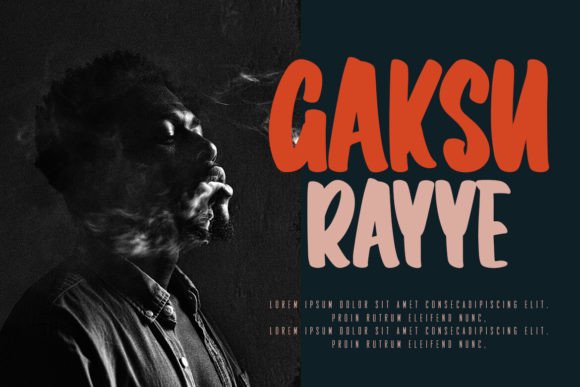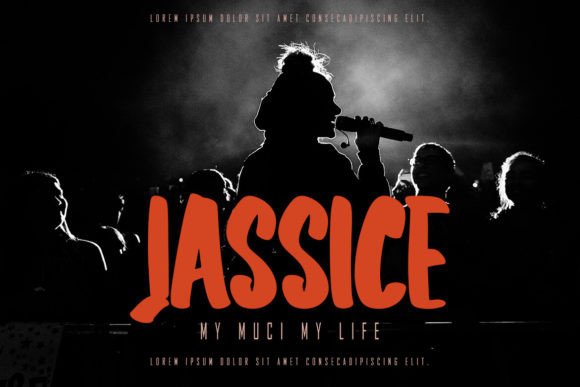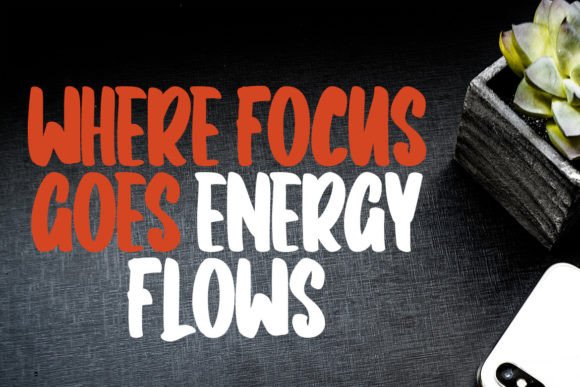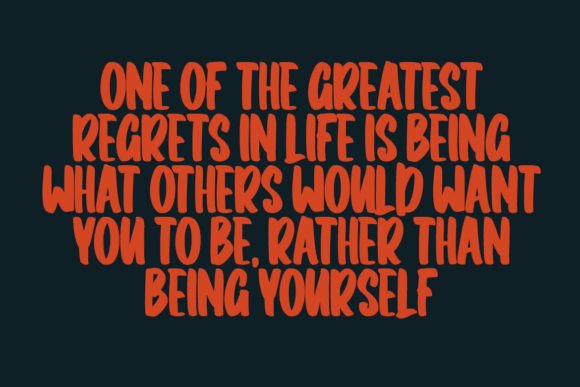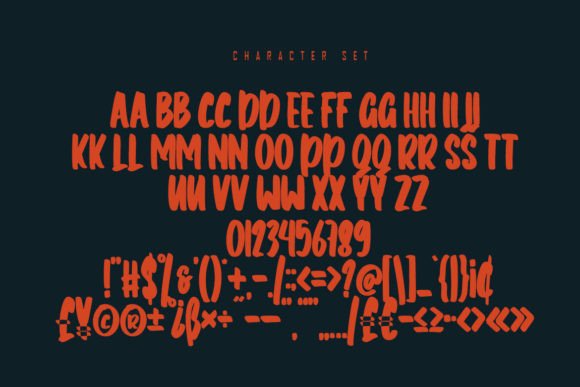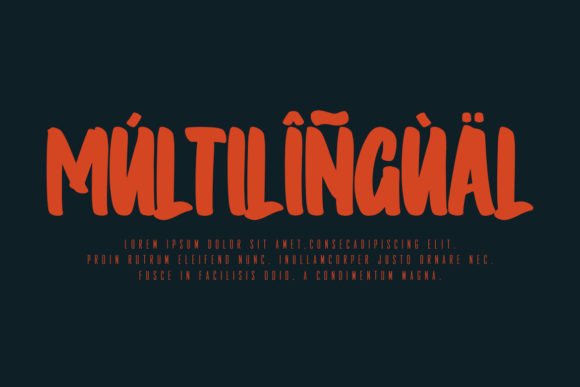
Introduction to Fasura Font
Fasura is a modern, cool, beautiful, and very suitable Handwritten font to support your presentation and support in marketing your products and business.
Fasura is a modern, cool, beautiful, and very suitable Handwritten font to support your presentation and support in marketing your products and business
Fasura Font offers exceptional quality and versatility, making it a valuable addition to your design toolkit. Whether you’re creating for personal projects or commercial use, Fasura Font delivers professional results.